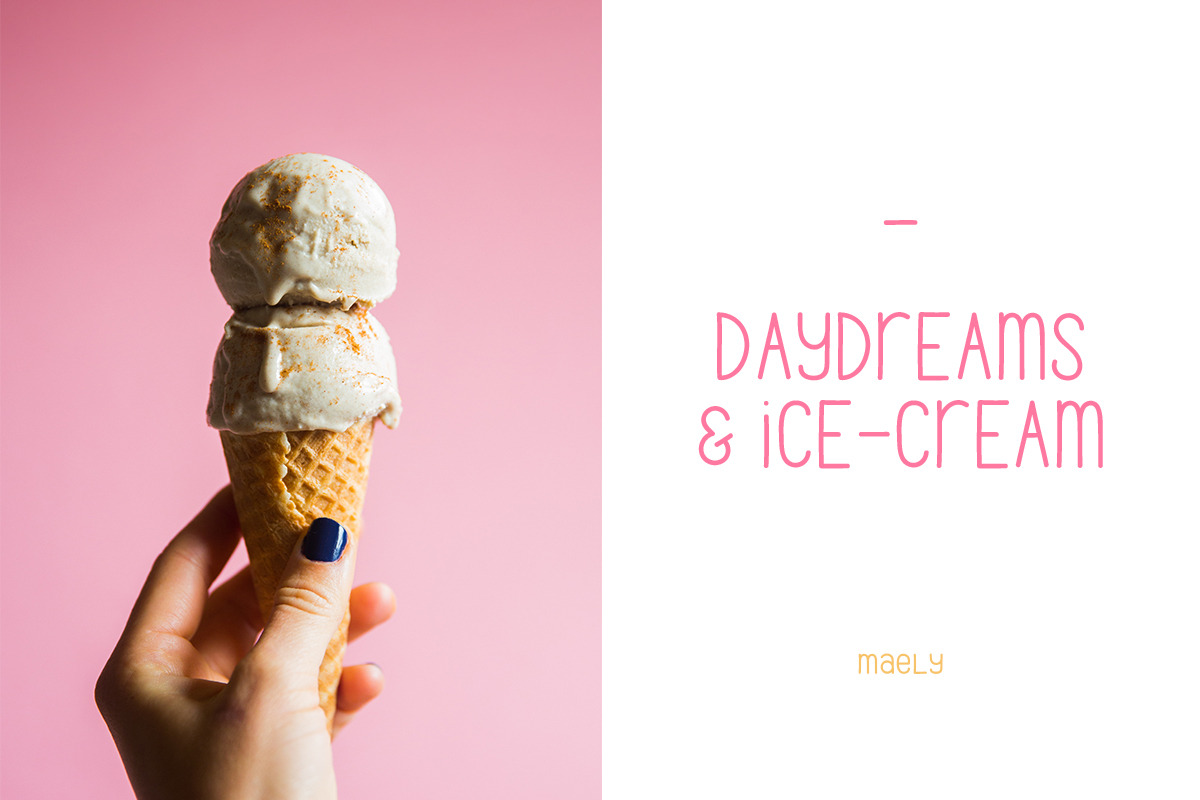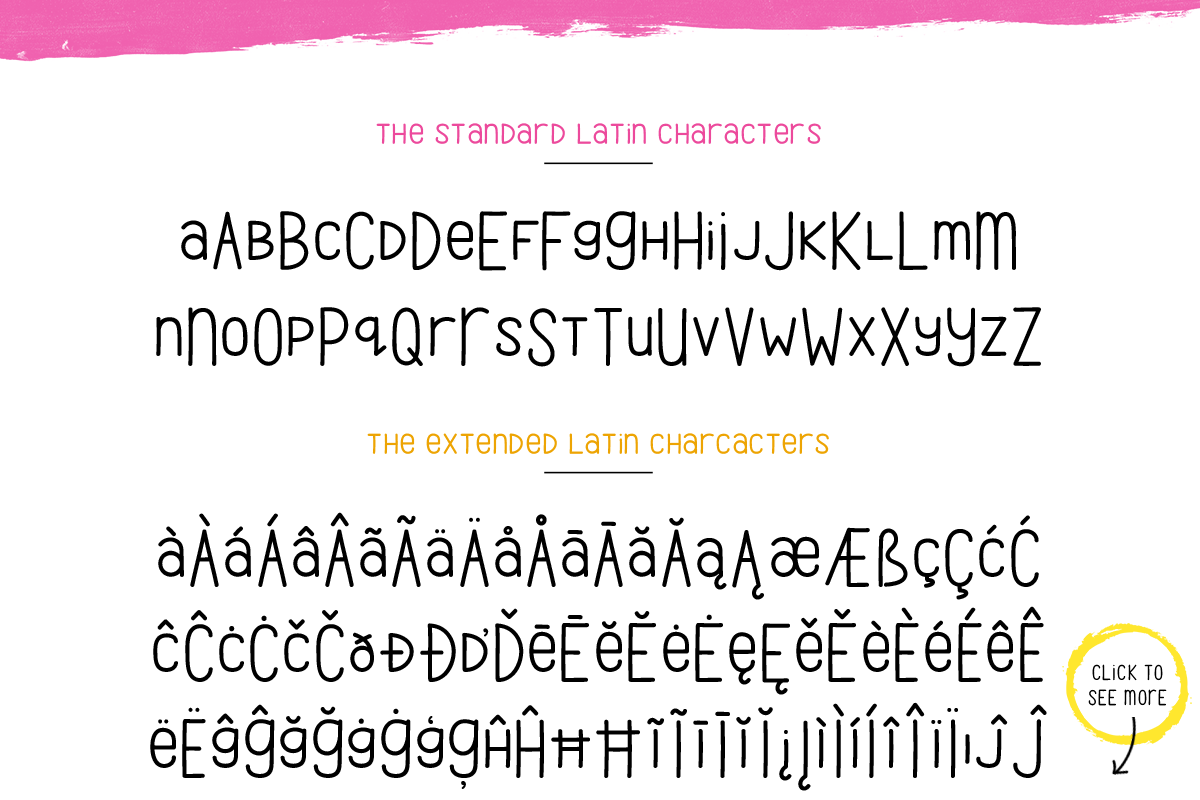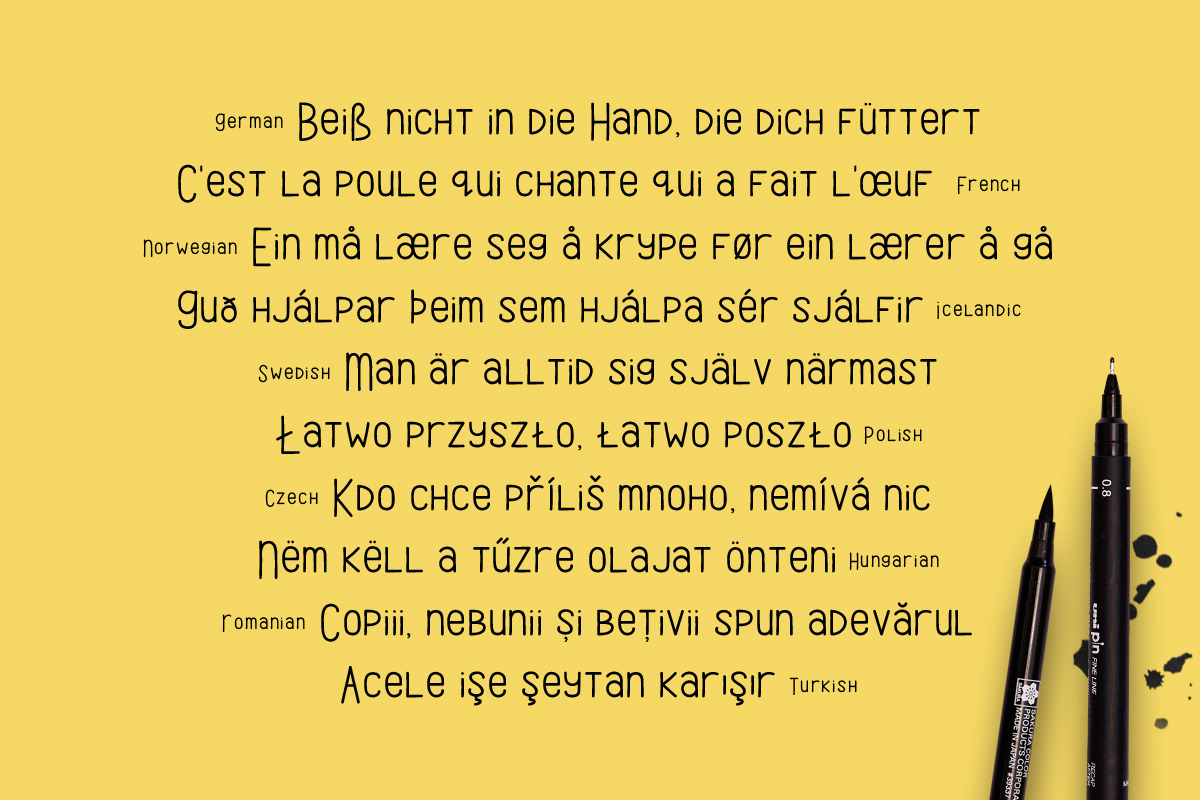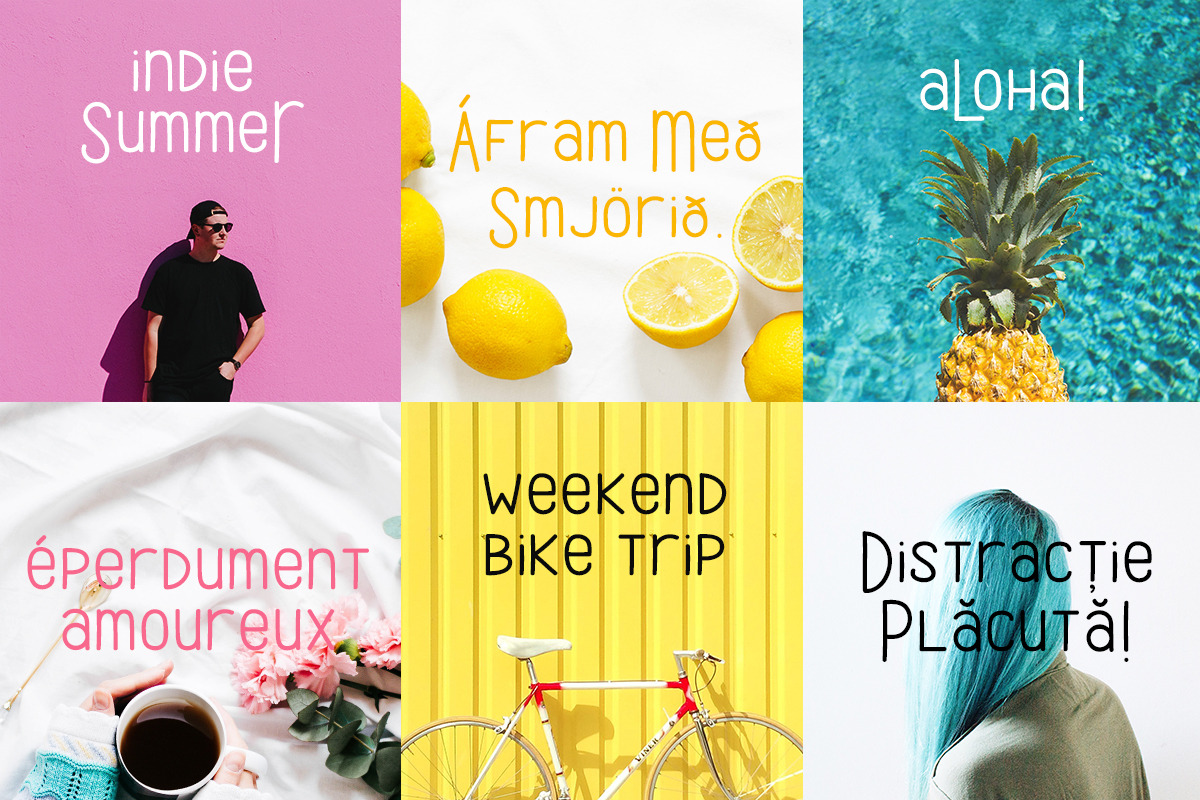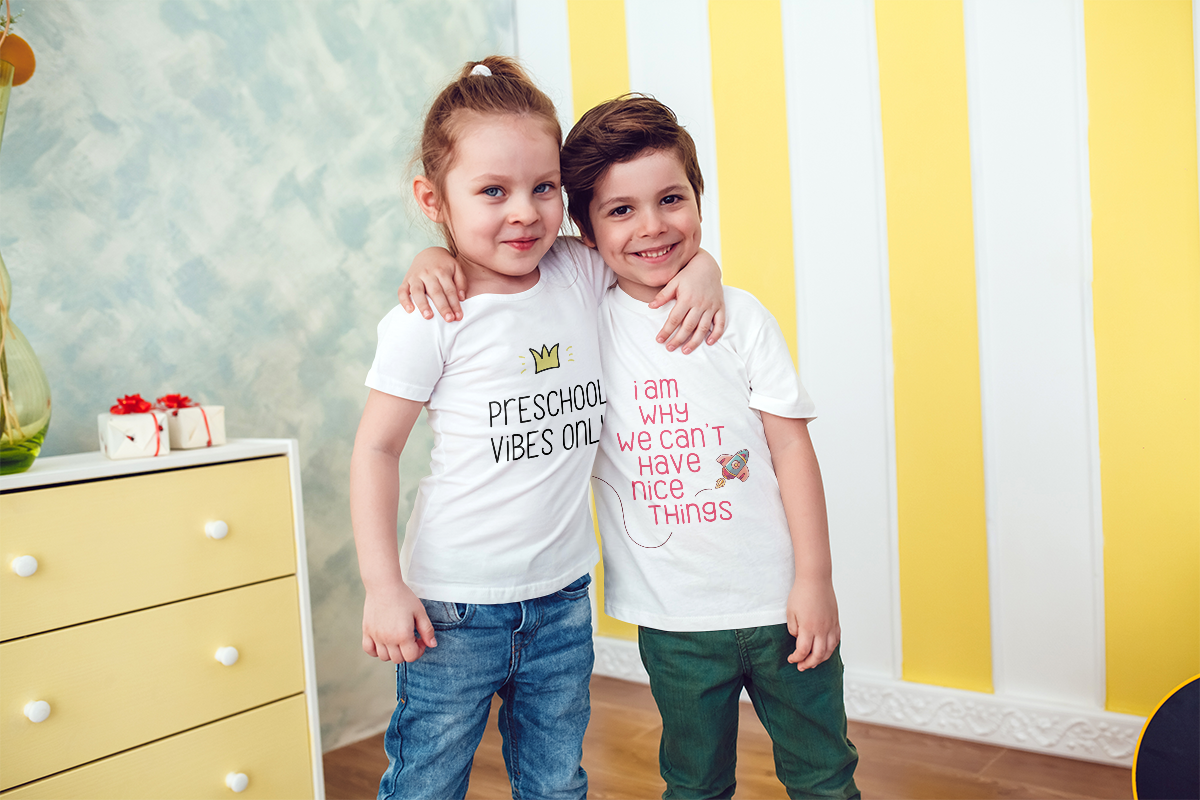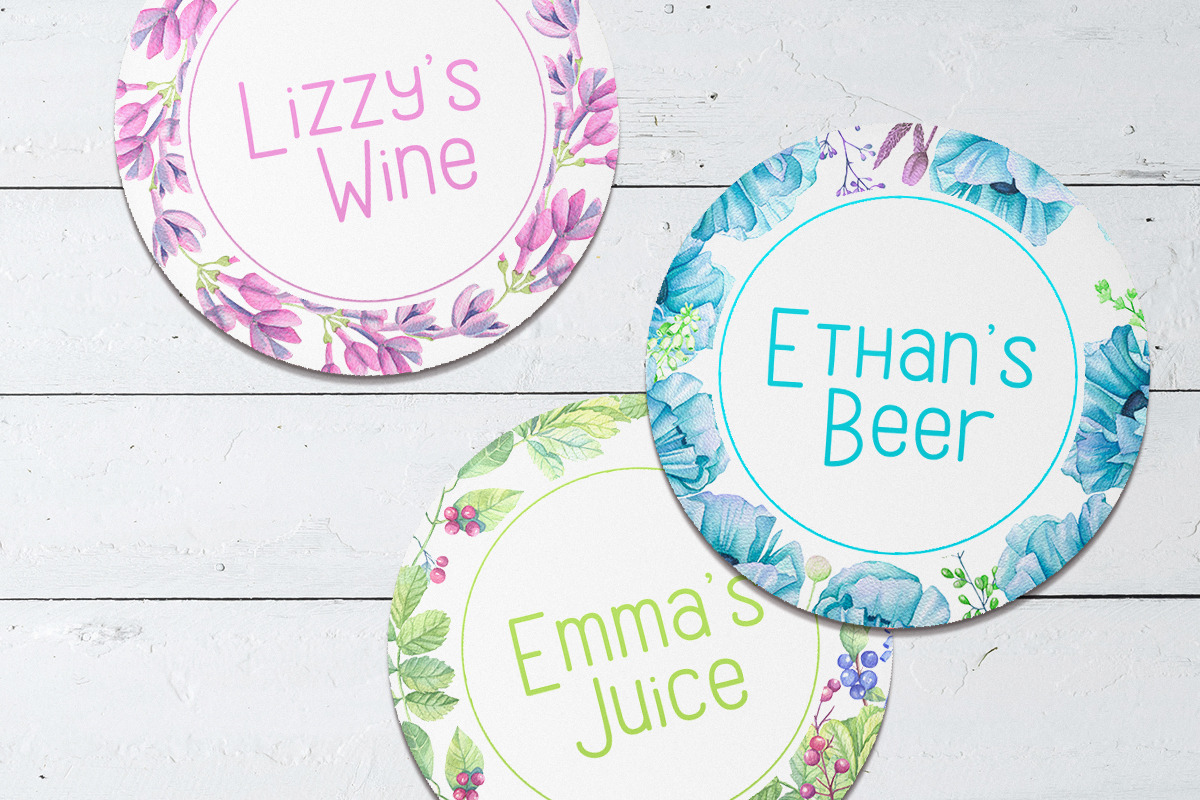
Maely | A Cute & Playful Typeface
Maely is an adorable, playful typeface with a monoline style. Its simplicity & versatility is perfect for any creative projects, be it a logo, quote, blog header, invitation, branding, t-shirts, posters & etc! Contains standard characters, lowercase, uppercase, numbers, punctuation & extended latin characters.
Language Support: Croatian, Czech, Danish, English, Estonian, Faroese, Finnish, French,German, Hungarian, Icelandic, Indonesian, Irish, Italian,Latvian, Lithuanian,Norwegian Bokmål, Norwegian Nynorsk, Polish, Portuguese, Romanian, Scottish Gaelic,Slovak, Slovenian, Spanish, Swahili, Swedish, Swiss German ... do try it out yourself! :)